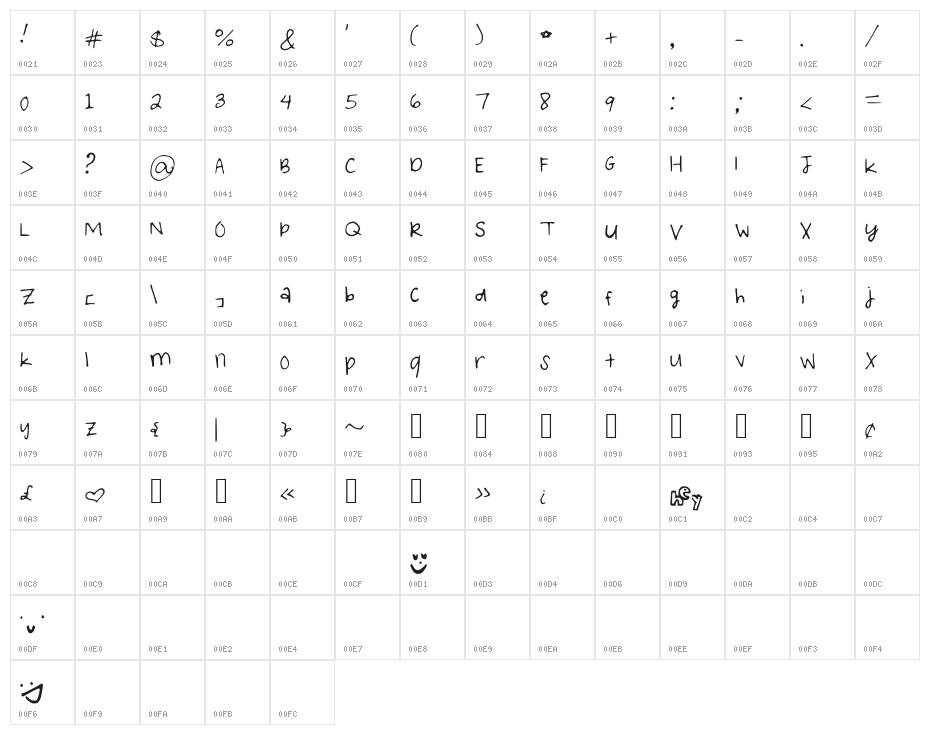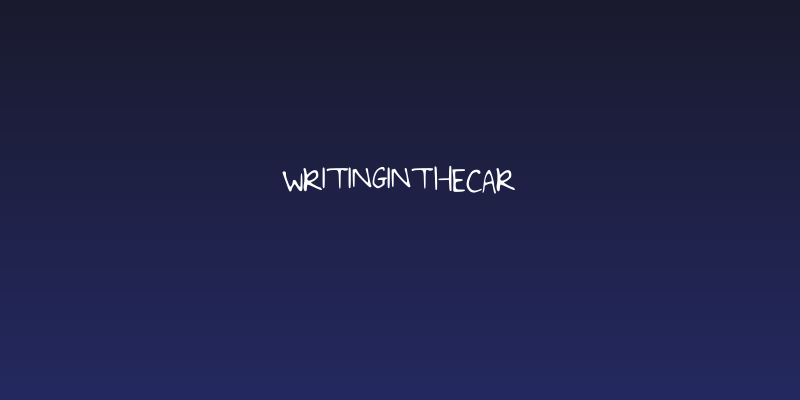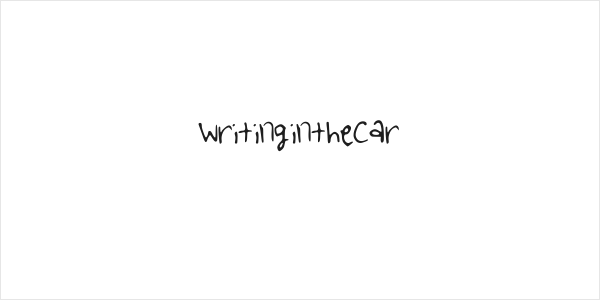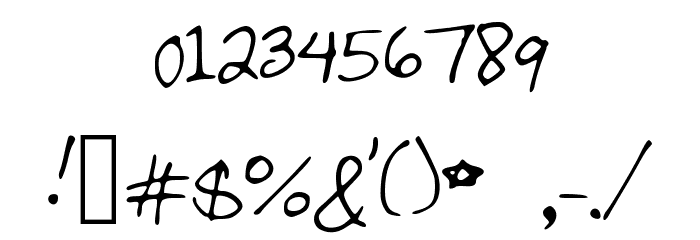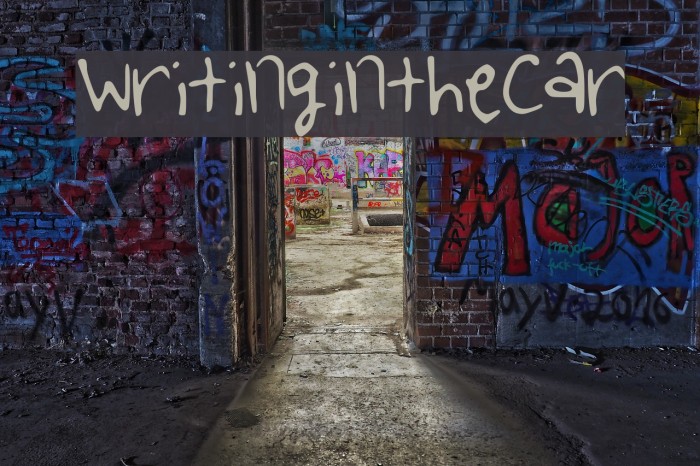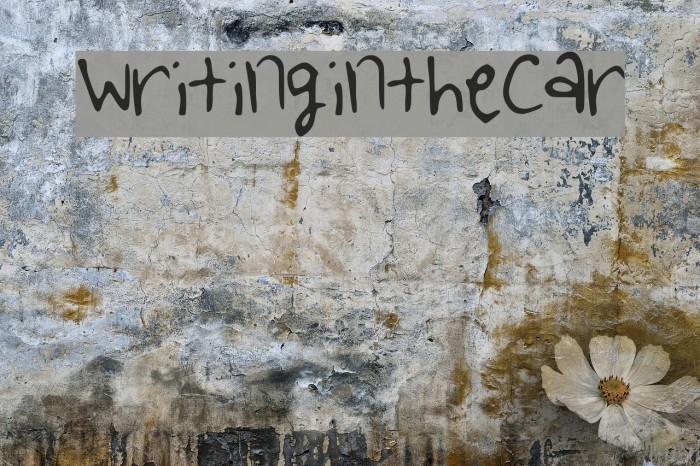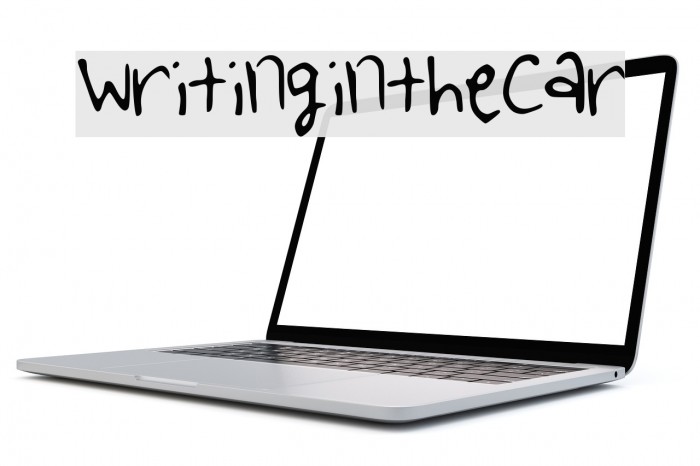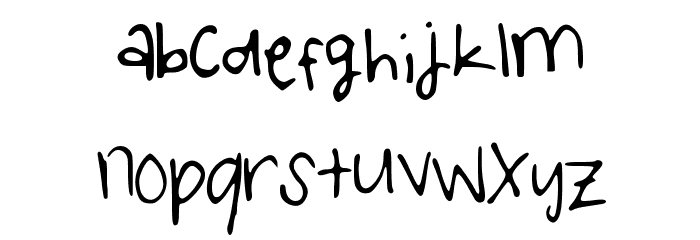
WritingintheCar Font
WritingintheCar Description
This playful and informal font features a handwritten style with a casual and friendly appearance. The letters are slightly irregular, giving it a personal touch that mimics natural handwriting. The uppercase and lowercase letters are distinct, with a slight slant and varying stroke thickness that adds to its charm. The numerals and special characters maintain the same whimsical style, making it versatile for various creative projects. The font's overall look is approachable and relaxed, suitable for conveying a sense of warmth and personality.
WRITINGINTHECAR UPPERCASE
WRITINGINTHECAR LOWERCASE
WRITINGINTHECAR OTHER CHARS